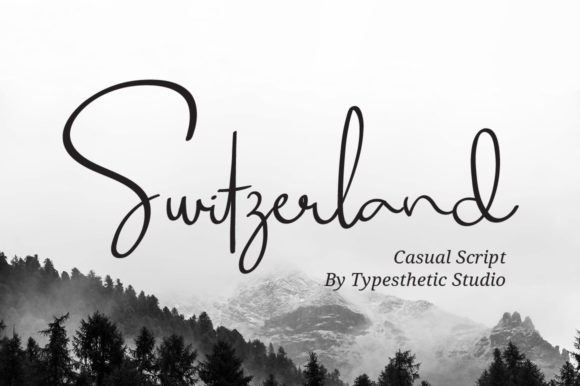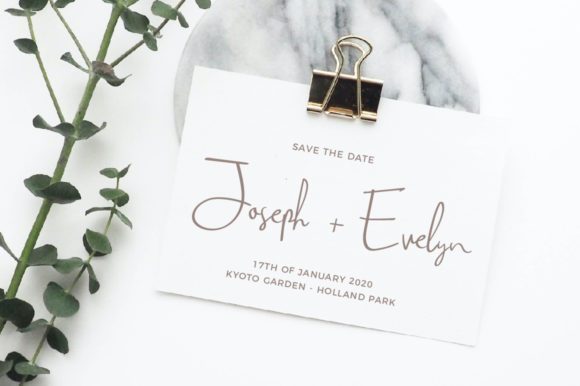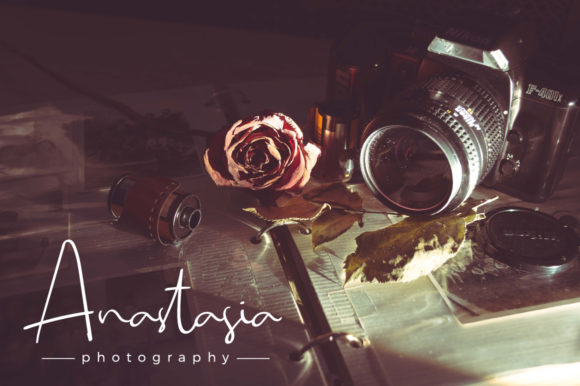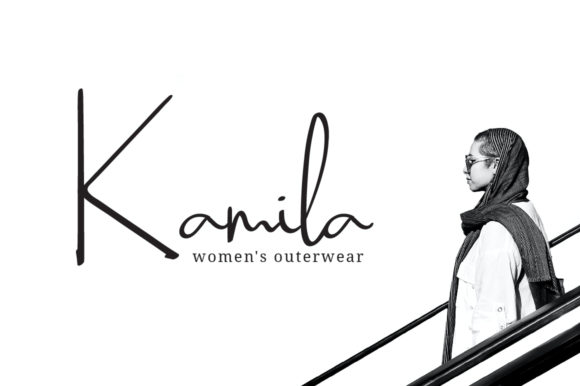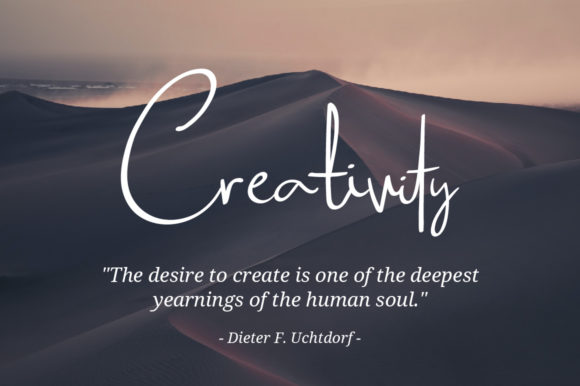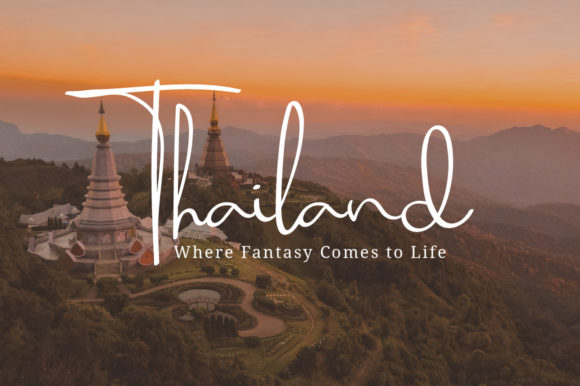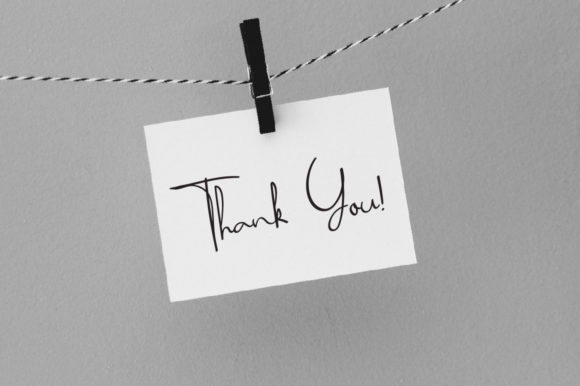
Switzerland Font
About Switzerland Font
Switzerland is a classy and elegant handwritten font. Give your designs a sophisticated look with Switzerland! Whether you’re looking for fonts for Instagram or calligraphy scripts for DIY projects, this font will turn any creative idea into a true piece of art!